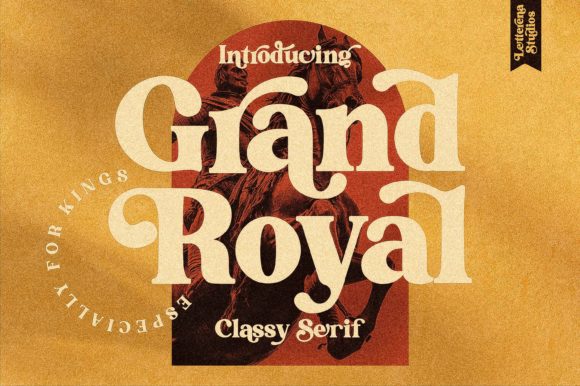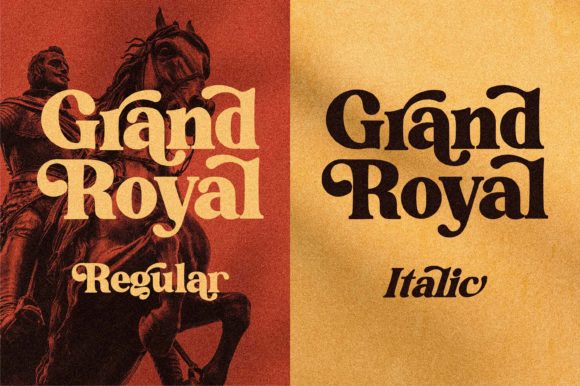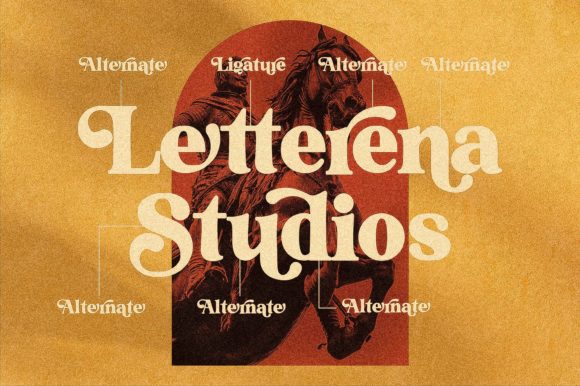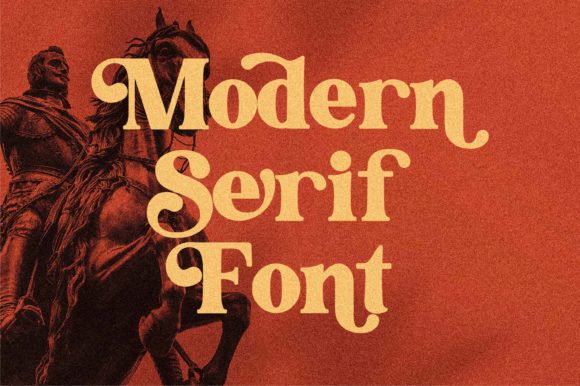
Grand Royal Font: A Bold Serif for Elegant Logo Design
About the Grand Royal Font
Step up your design game with Grand Royal Font, a font that exudes confidence and style. Grand Royal is a bold and classy serif font. Fall in love with its incredibly versatile style and use it to create gorgeous wedding invitations, beautiful stationary art, eye-catching social media posts, and much more!
Grand Royal’s strong serifs and confident stroke weight make it ideal for headlines, logos, and short-form text in branding materials and packaging design. It also excels in creating a sense of occasion in invitations and posters. However, its bold nature makes it less suitable for body text or extended reading; the visual weight would be overwhelming and hinder readability.
For a balanced pairing, consider a clean, neutral sans-serif like Lato or Open Sans for body copy, complementing Grand Royal’s elegance. Alternatively, a script font such as Allura could add a touch of playful sophistication to wedding invitations or other projects requiring a more decorative element. Avoid pairing it with other heavily ornamented fonts, as this will clash visually.
Grand Royal projects a personality of sophisticated boldness and classic elegance. It’s best suited to brands or projects that aim for a refined yet authoritative feel, communicating quality and prestige.